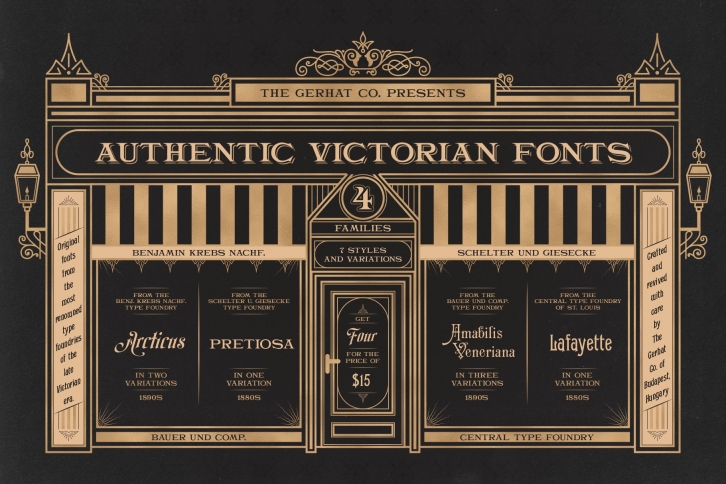
The bundle includes extended digital revivals of four original typefaces which were in use by printers during the 1880s and 1890s:
• Arcticus:
A slightly modified revival of "Reklame Kursiv" by the Benjamin Krebs Nachfolger Type Foundry of Frankfurt am Main, Germany. Arcticus is characterized by distinguished capitals, powerful swooshes, and includes alternative ascenders and descenders for most characters which enable you to conform them to one another. The letterforms are heavily based on the original typeface, however, vertical lines have been straightened slightly to give the font a more uniform look. Arcticus comes in two variations (Regular & Outlined) replicating the two original choices available during the 1890s.
• Pretiosa:
An all-caps display serif originally designed and sold under the same name by the Schelter & Giesecke Type Foundry of Leipzig, Germany from the 1880s onwards. Pretiosa's most dominant characteristic is its width which makes it perfect for fine print and filling wider rows. The original typeface also came in a layered variation with a halftone background under the name "Pretiosa Schildschrift". This variation was used by typesetters and printers for display purposes and is provided in an .AI format for Adobe Illustrator.
• Amabilis Veneriana:
Coming in its two original weights (Regular & Bold) as well as a decorated version (Hollow), Amabilis Veneriana is a digital revival of "Carmen" by the Bauer & Comp. Type Foundry of Stuttgart, Germany. The original typeface first appeared around 1890. The name is a mixture of Latin and Italian and is a dedication to a very special person.
• Lafayette:
Originally designed and sold by the Central Type Foundry of St Louis, Missouri during the 1880s, Lafayette is a typeface which was copied around the world, sold under different names, and also modified to have different weights and variations. This bundle includes a digital revival of its original variation.